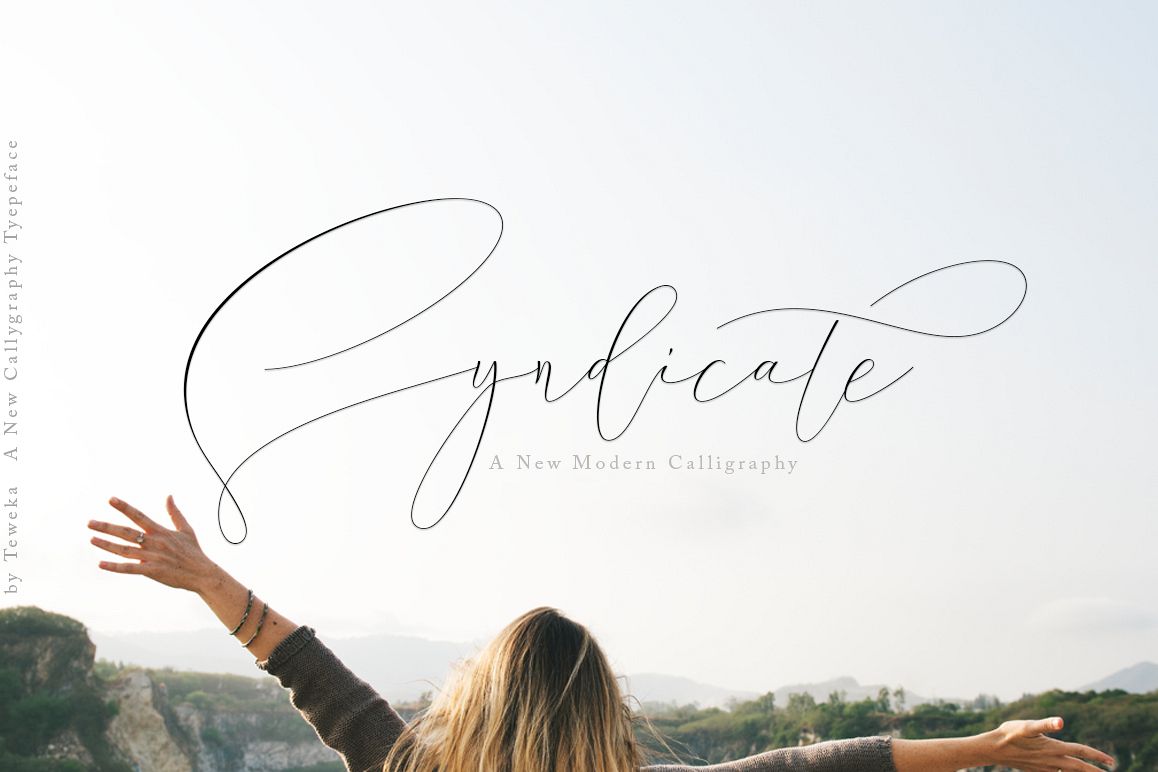
Syndicate
Syndicate modern calligraphy font with contemporary, sophisticated accents. It is perfect for branding, wedding invites and cards, and maybe for red wine label. Syndicate come with 343 glyphsSyndicate includes full set of gorgeous uppercase and lowercase letters, numerals, a large range of punctuation and ligatures. All lowercase letters include beginning and ending swashes, that makes the font look fabulous!You will get: